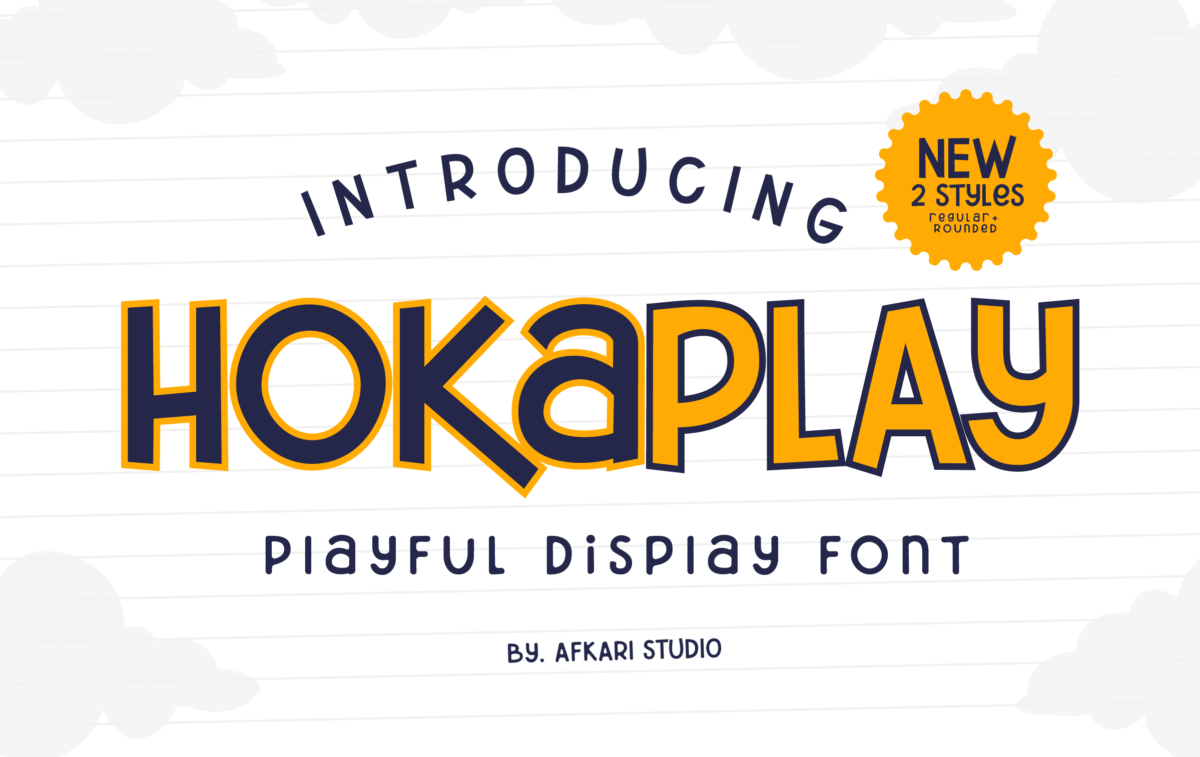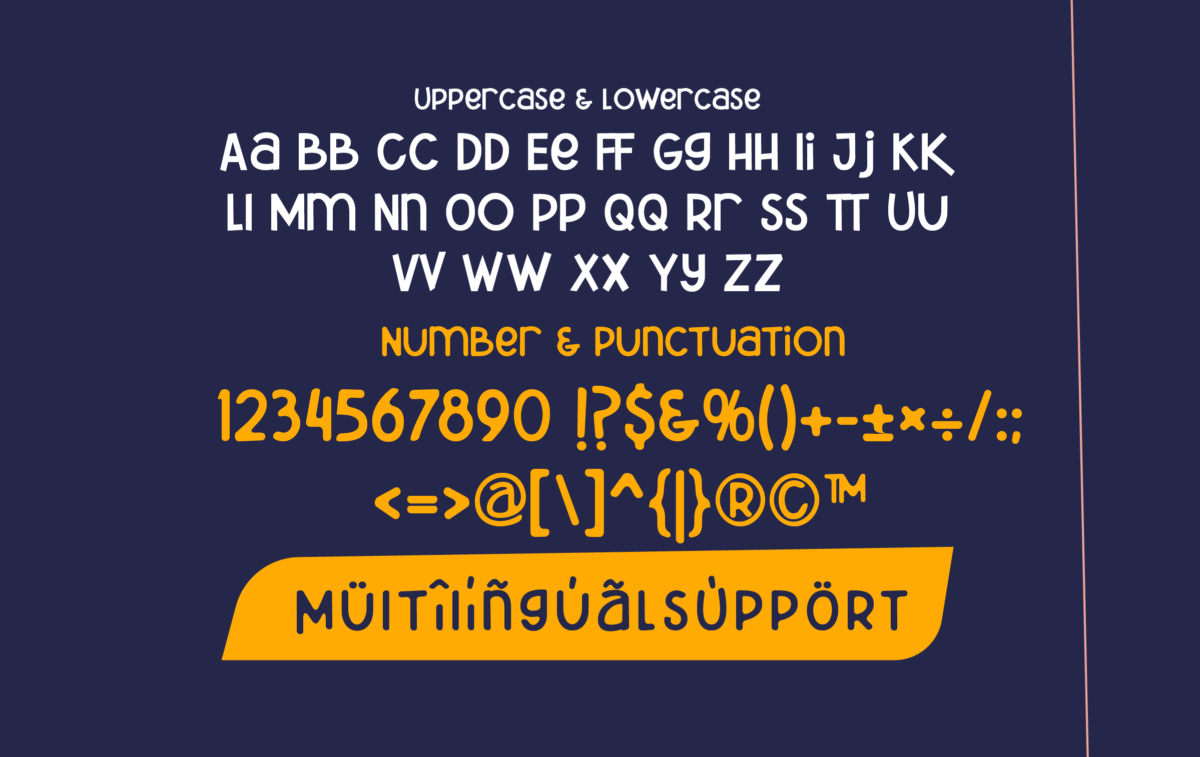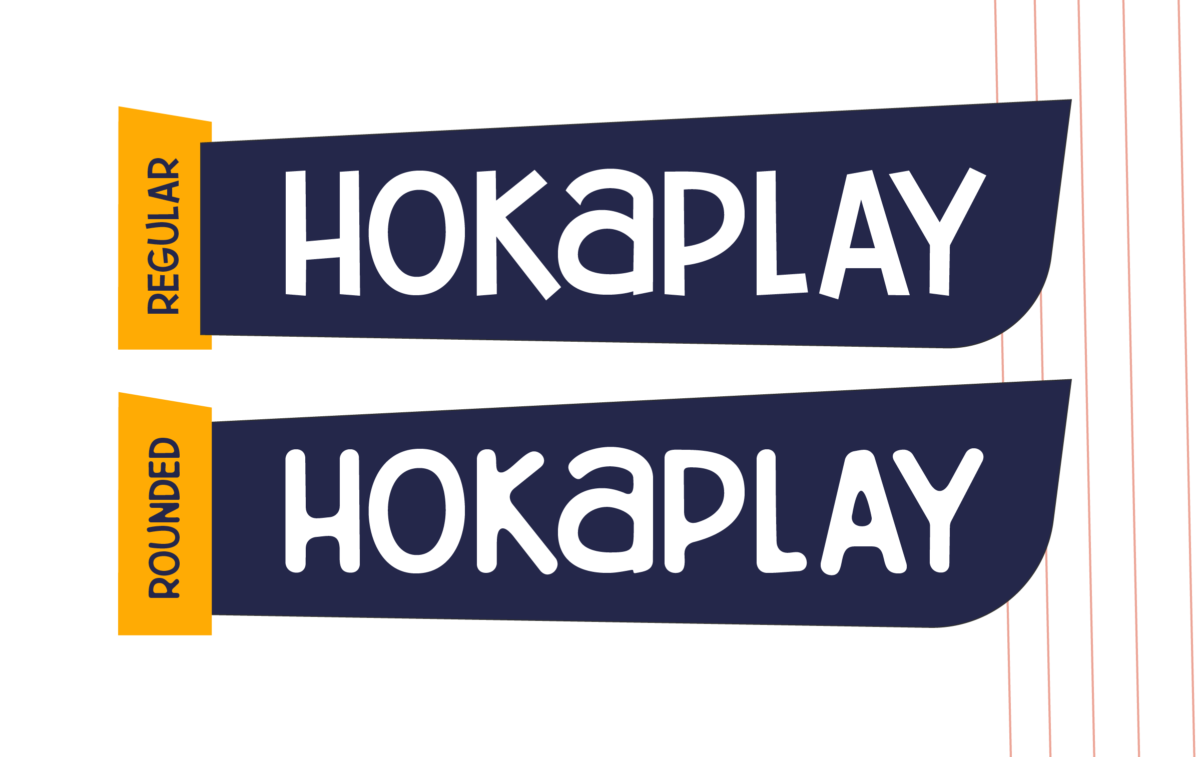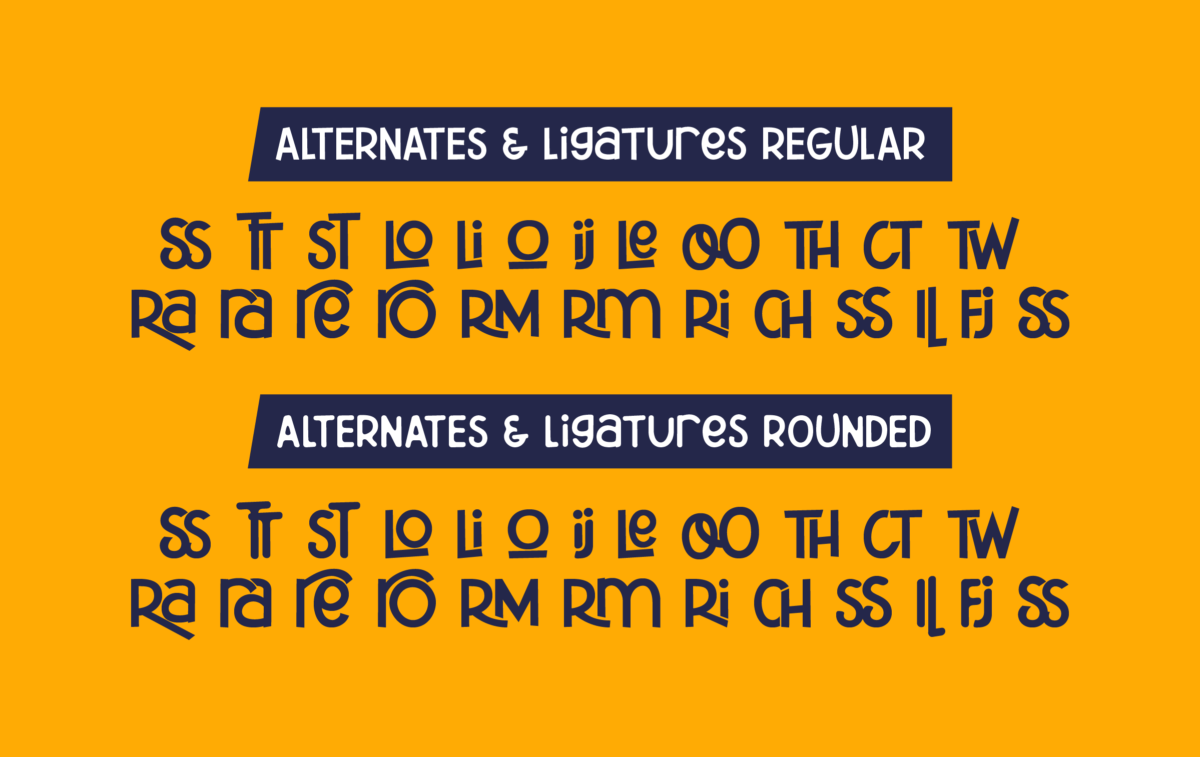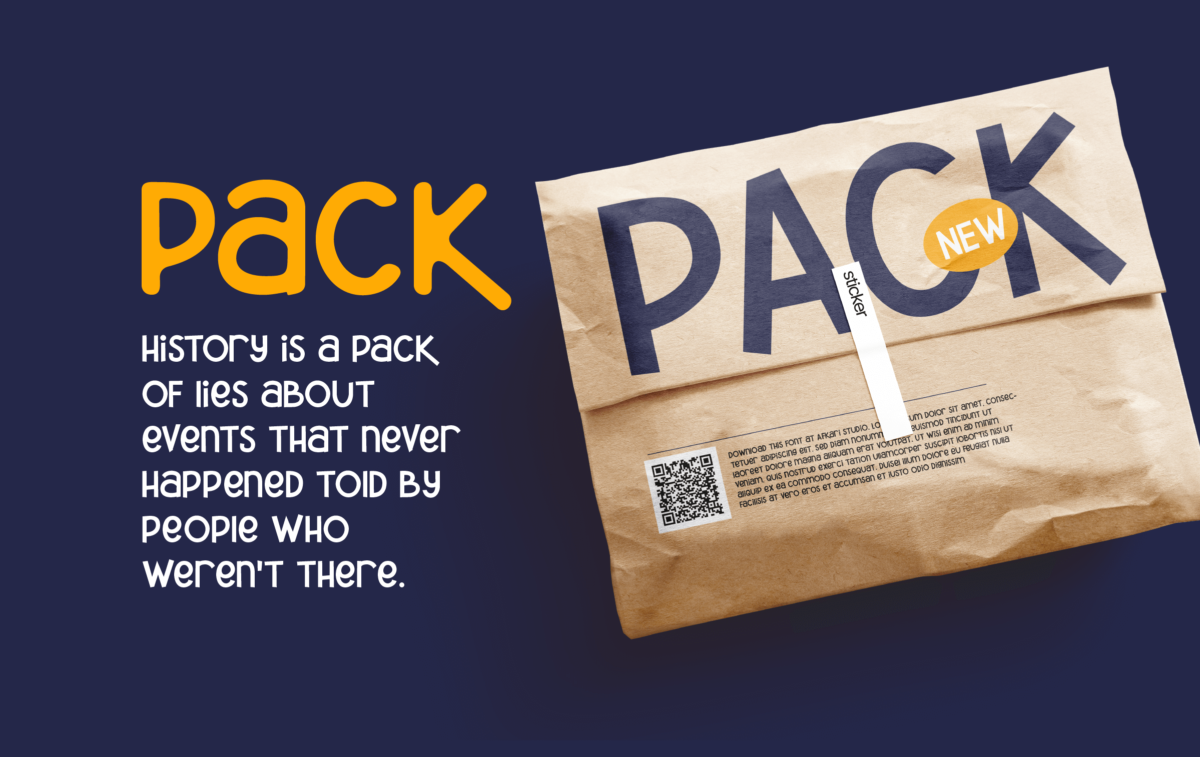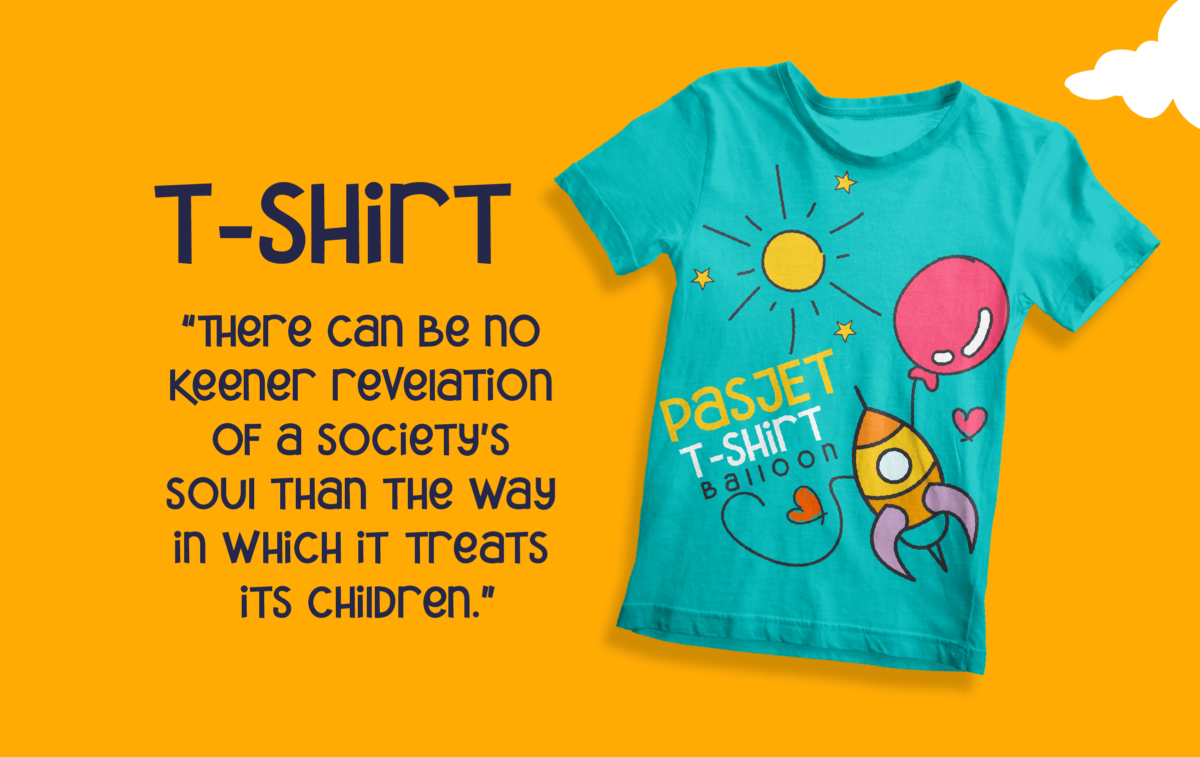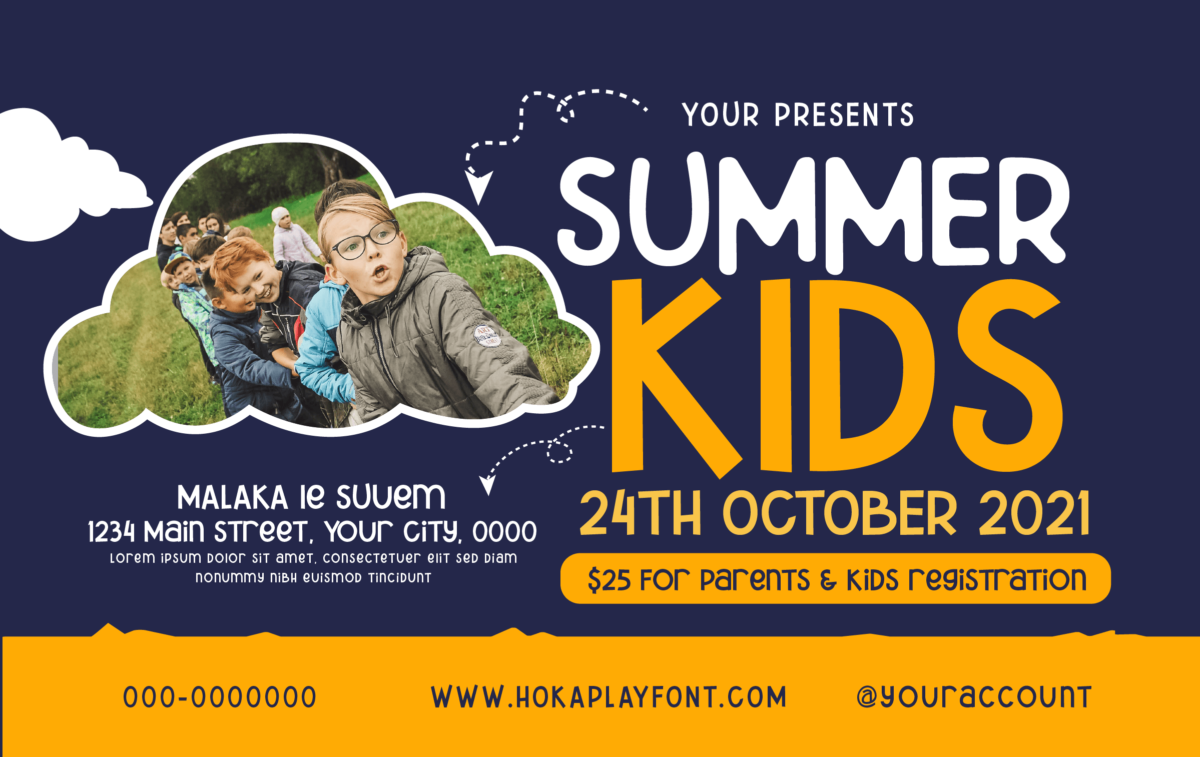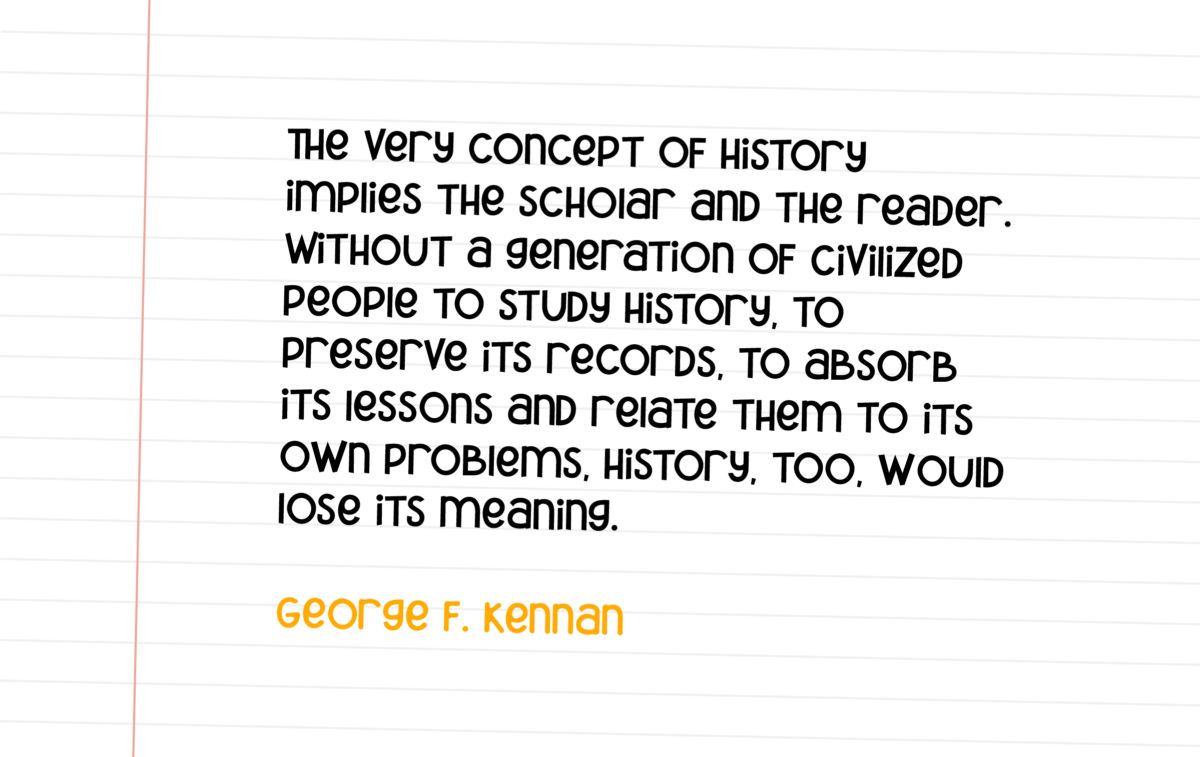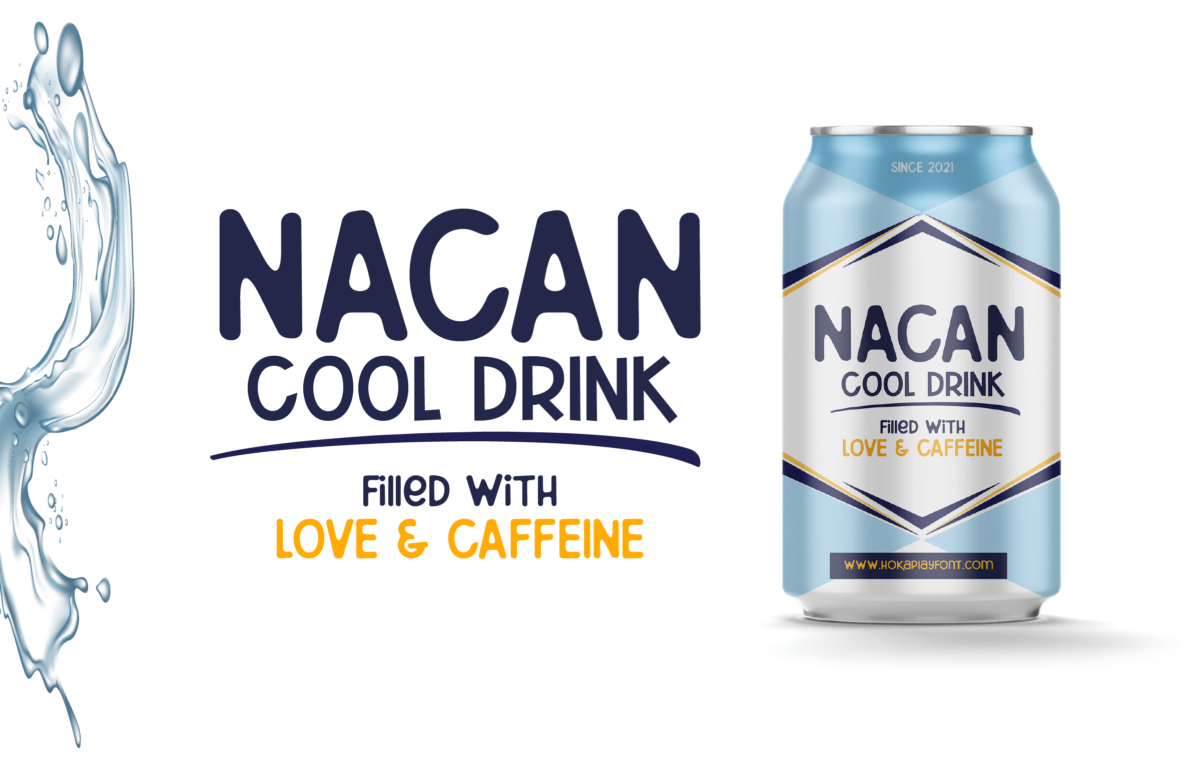
Hokaplay - Playful Display Font
Hokaplay – Playful Display Font
Hokaplay is a playful display font that create with a very good concept and adjusted well to keep the legibility. Hokaplay Playful Display Font Comes with upper and lowercase Standard Characters, Punctuation, Numerals And other Glyphs variation of the OpenType features/ Ligatures.
Hokaplay Playful Display Font suitable for logos, posters, school flyer, university banner, modern advertising design, product labels, cartoon, kid book, custom mug, pillow, t-shirts, youtube thumnail/cover, poster quote, editorial design, book / cover Title, website / blog, social media post, packaging designs and other designs.
Features;
– 2 Styles; Regular and Rounded
– Standart and special ligatures
– Uppercase, Lowercase, Number and Punctuation
– Mültîlíñgúãl Sùppört for; ä ö ü Ä Ö Ü ß ¿ ¡